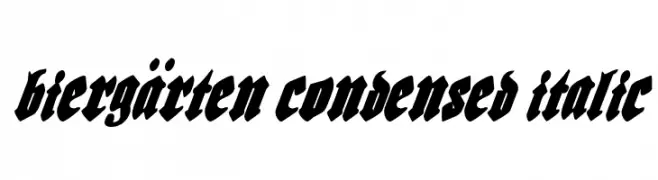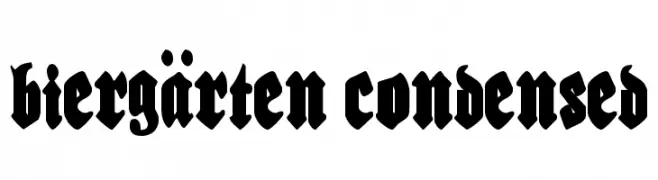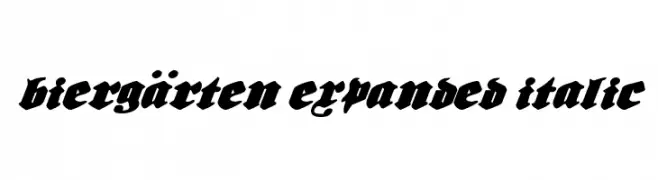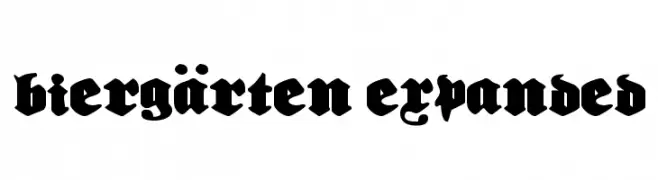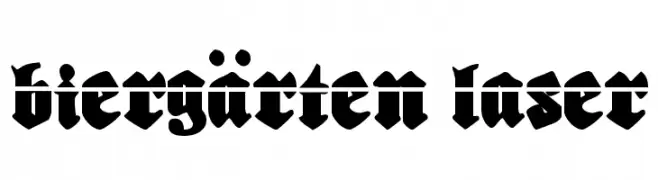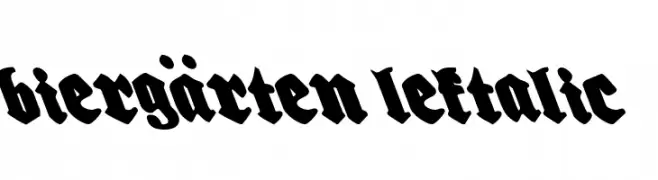
• Biergärten Leftalic
A bold, blackletter-inspired font with a gothic and medieval flair.
• Biergärten Expanded Italic
A bold, italicized font with high contrast and decorative, angular features.
• Biergärten Condensed Italic
A bold, condensed, italic Blackletter-style font with a vintage gothic aesthetic.
• Biergärten Shadow Italic
A bold, shadowed, italic font with a dynamic, gothic-inspired style.
• Biergärten Laser
A bold, blackletter font with a medieval and dramatic style.
• Biergärten Light Condensed
A bold, condensed Blackletter font with intricate, angular letterforms.
• Biergärten Expanded
A bold, expanded blackletter font with a traditional Gothic style.
• Biergärten Rotalic Laser
A bold, modern blackletter font with sharp, angular characters.
• Biergärten Condensed
A bold, condensed Blackletter style font with sharp, angular lines and intricate detailing.
• Biergärten Rotate
A bold, blackletter-style font with intricate, angular details.